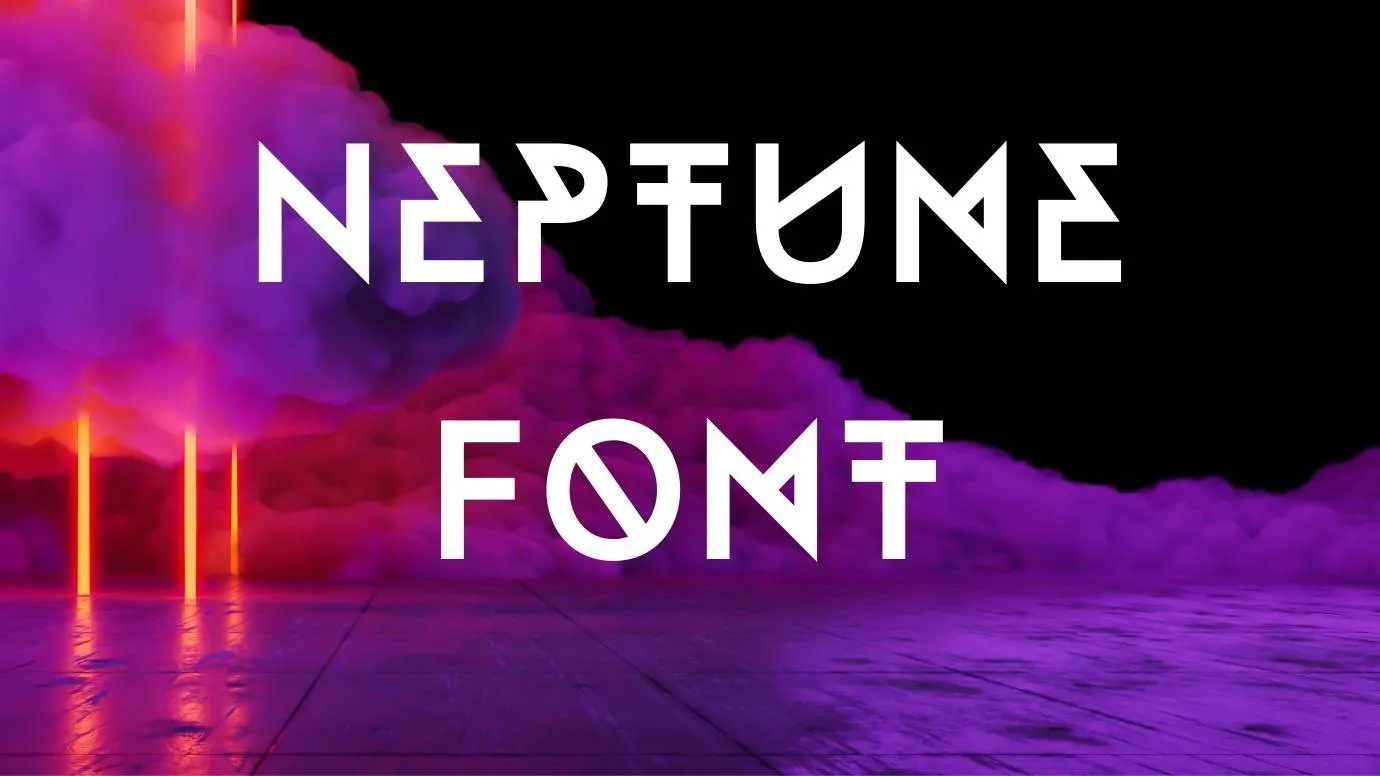
Neptune Font Family is a modern typeface that belongs to the fancy category in the font family. This typeface was published and created by David Massara. It consists of five beautiful weights that create attractive designs and shapes.
This fancy typeface has more than 125 characters and 110 unique and attractive glyphs along with 1048 units per em. Many languages support this typeface due to its elegant look and unique texture.
Neptune Font